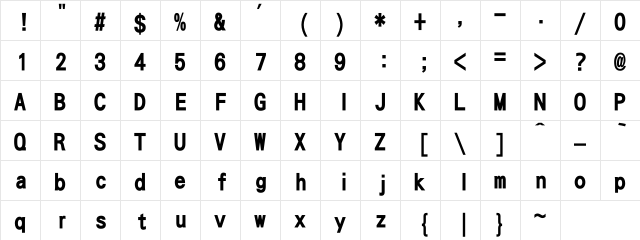
DFLiHeiU-Bd Regular
Design Context for DFLiHeiU-Bd Typeface
DFLiHeiU-Bd is a composed and adaptable typeface that performs quietly and consistently across a wide range of design contexts. Its bold stroke weight gives it real presence on the page.